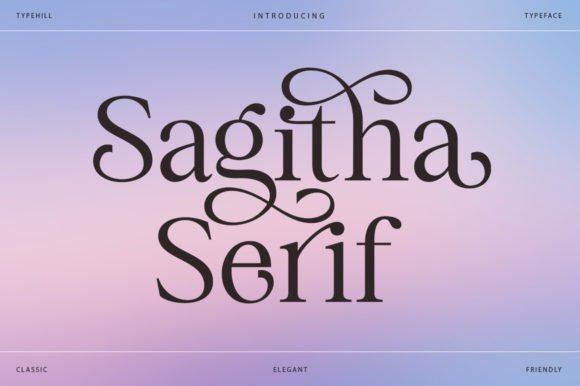
Sagitha Serif Font: A Timeless Typeface for Elegant Designs
Sagitha Serif is a sophisticated and versatile font that has gained popularity among designers and typographers. This elegant typeface boasts a unique blend of classic and modern elements, making it perfect for a wide range of applications. In this article, we’ll explore the features and benefits of Sagitha Serif, and discuss how it can elevate your designs to the next level.
What Makes Sagitha Serif Special?
Sagitha Serif is a neoclassical serif typeface that exudes a sense of refinement and luxury. Its subtle, clean, and feminine design makes it an ideal choice for projects that require a touch of elegance. The font features:
- High contrast: Sagitha Serif’s high contrast design creates a visually appealing effect, making it perfect for headlines, titles, and other display text.
- Cool and stylish look: The font’s unique design elements, such as its subtle curves and refined lines, give it a distinctive and stylish appearance.
- Alternative fonts and ligatures: Sagitha Serif comes with alternative fonts and ligatures, allowing you to add variety and creativity to your designs.
- Multilingual support: The font supports multiple languages, making it a great choice for international projects.
Perfect for Formal and Fashionable Designs
Sagitha Serif’s classic style makes it an excellent choice for formal designs, such as:
- Invitations: Use Sagitha Serif to create elegant and sophisticated invitations for weddings, parties, and other special events.
- Labels and packaging: The font’s clean and refined design makes it perfect for product labels, packaging, and branding.
- Menus and stationery: Sagitha Serif is ideal for restaurant menus, letterheads, and other stationery that require a touch of elegance.
- Fashion and beauty: The font’s stylish and sophisticated design makes it a great choice for fashion and beauty brands, including logos, advertisements, and editorial content.
Ideal for Romantic and Creative Projects
Sagitha Serif’s feminine and sensual design also makes it perfect for romantic and creative projects, such as:
- Romantic novels and poetry: Use Sagitha Serif to create beautiful and elegant book covers, typography, and illustrations.
- Magazines and books: The font’s readability and classic style make it an excellent choice for editorial design, including magazines, books, and newspapers.
- Greeting and wedding cards: Sagitha Serif is perfect for creating beautiful and heartfelt greeting cards, wedding cards, and other celebratory designs.
Tips for Using Sagitha Serif
To get the most out of Sagitha Serif, follow these typography tips:
- Use it for headlines and titles: Sagitha Serif’s high contrast design makes it perfect for headlines and titles, where you want to grab the reader’s attention.
- Pair it with sans-serif fonts: Combine Sagitha Serif with sans-serif fonts for a classic and modern look.
- Experiment with font sizes and colors: Play with different font sizes and colors to create visual interest and hierarchy in your designs.
Sagitha Serif is a versatile and elegant font that can elevate your designs to the next level. Its classic style, high contrast design, and alternative fonts make it perfect for a wide range of applications, from formal and fashionable designs to romantic and creative projects. With Sagitha Serif, you can create stunning and sophisticated designs that will leave a lasting impression on your audience.